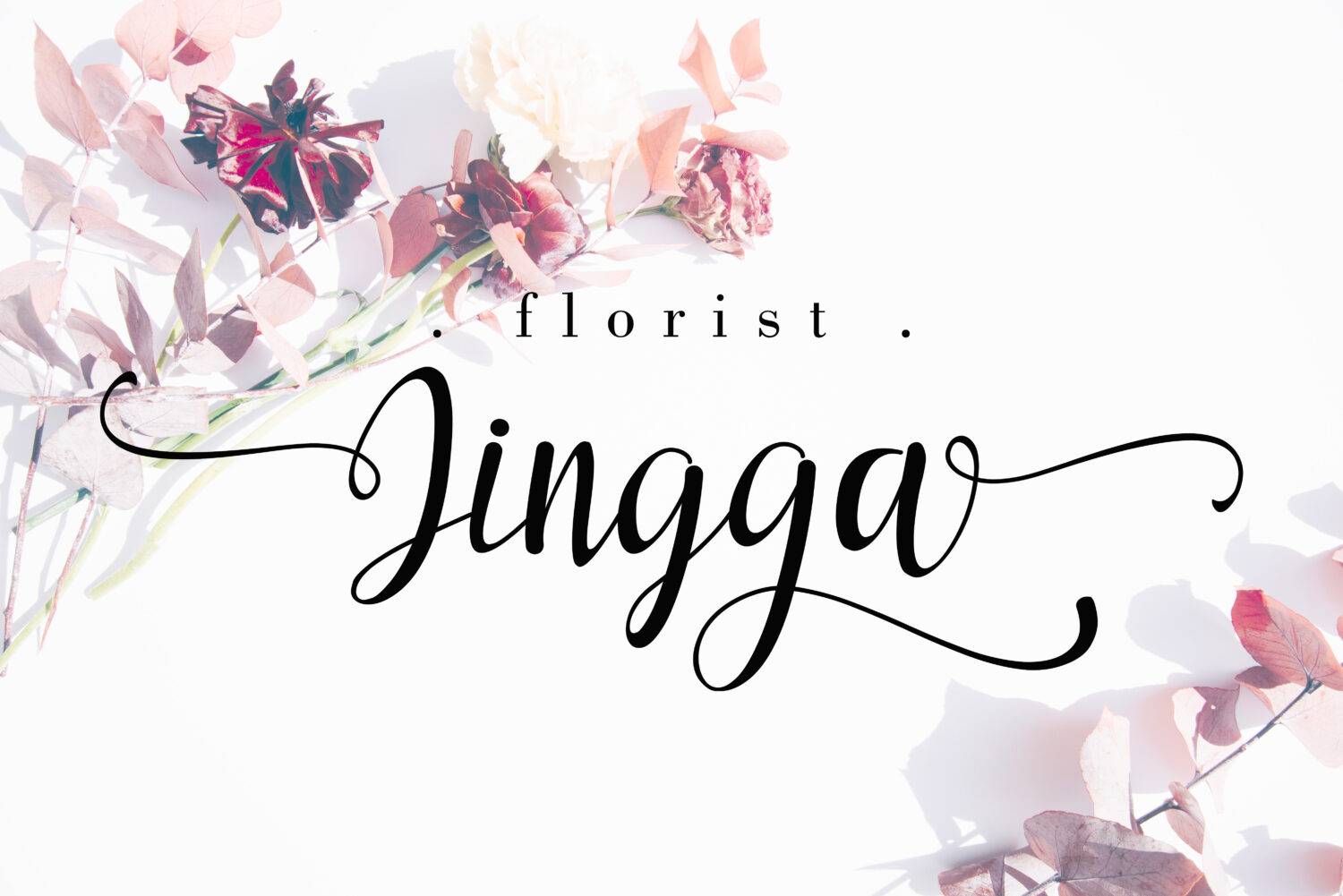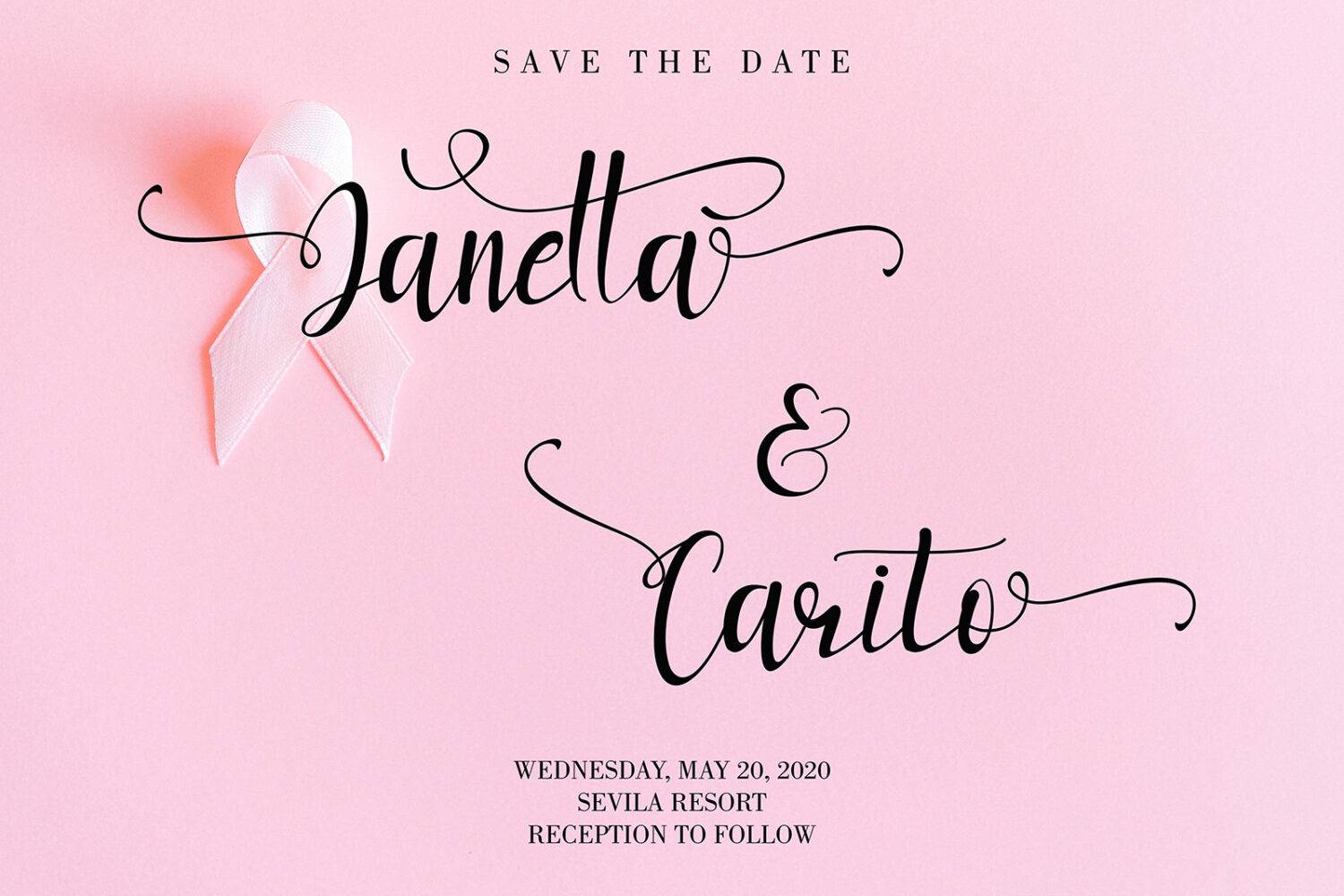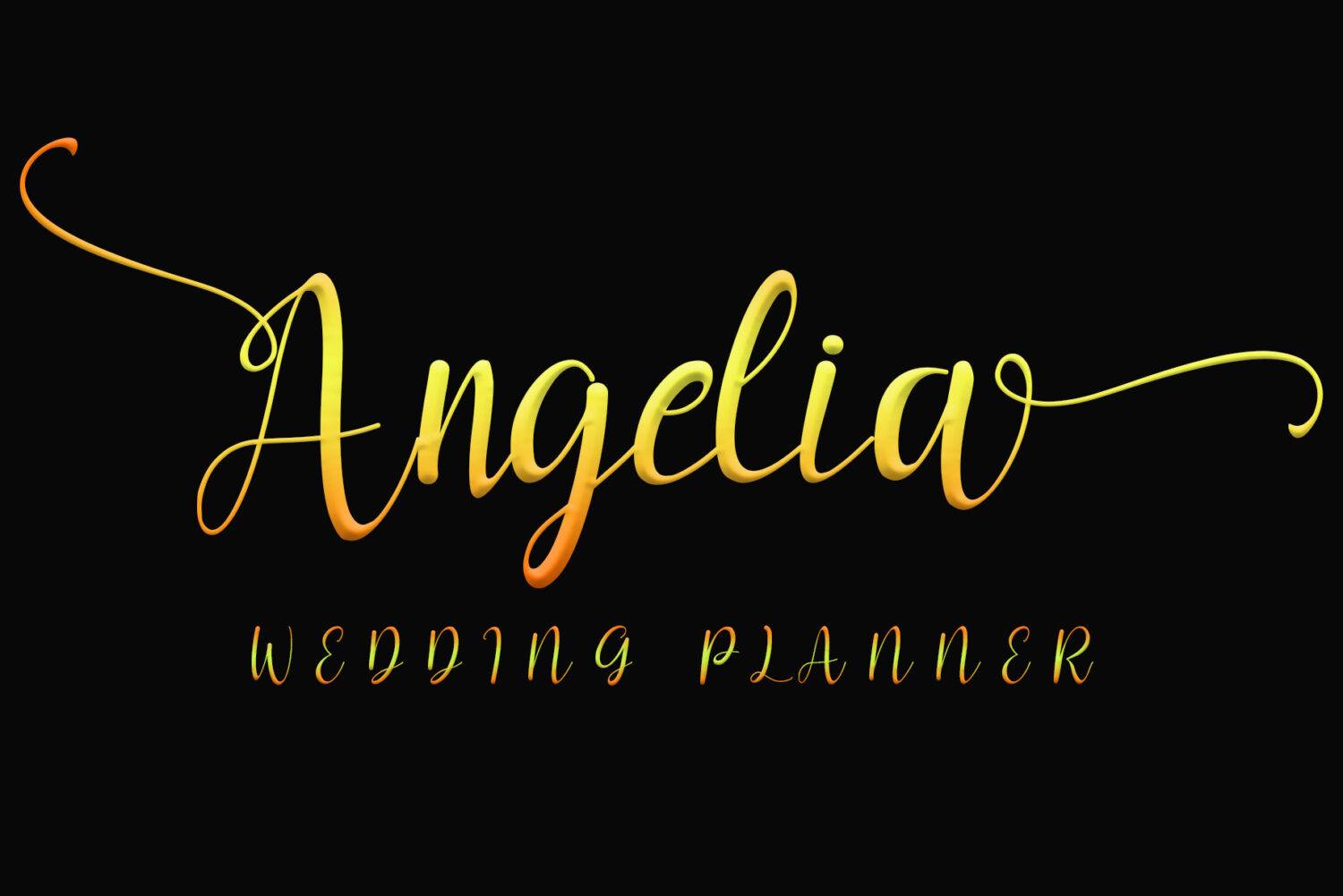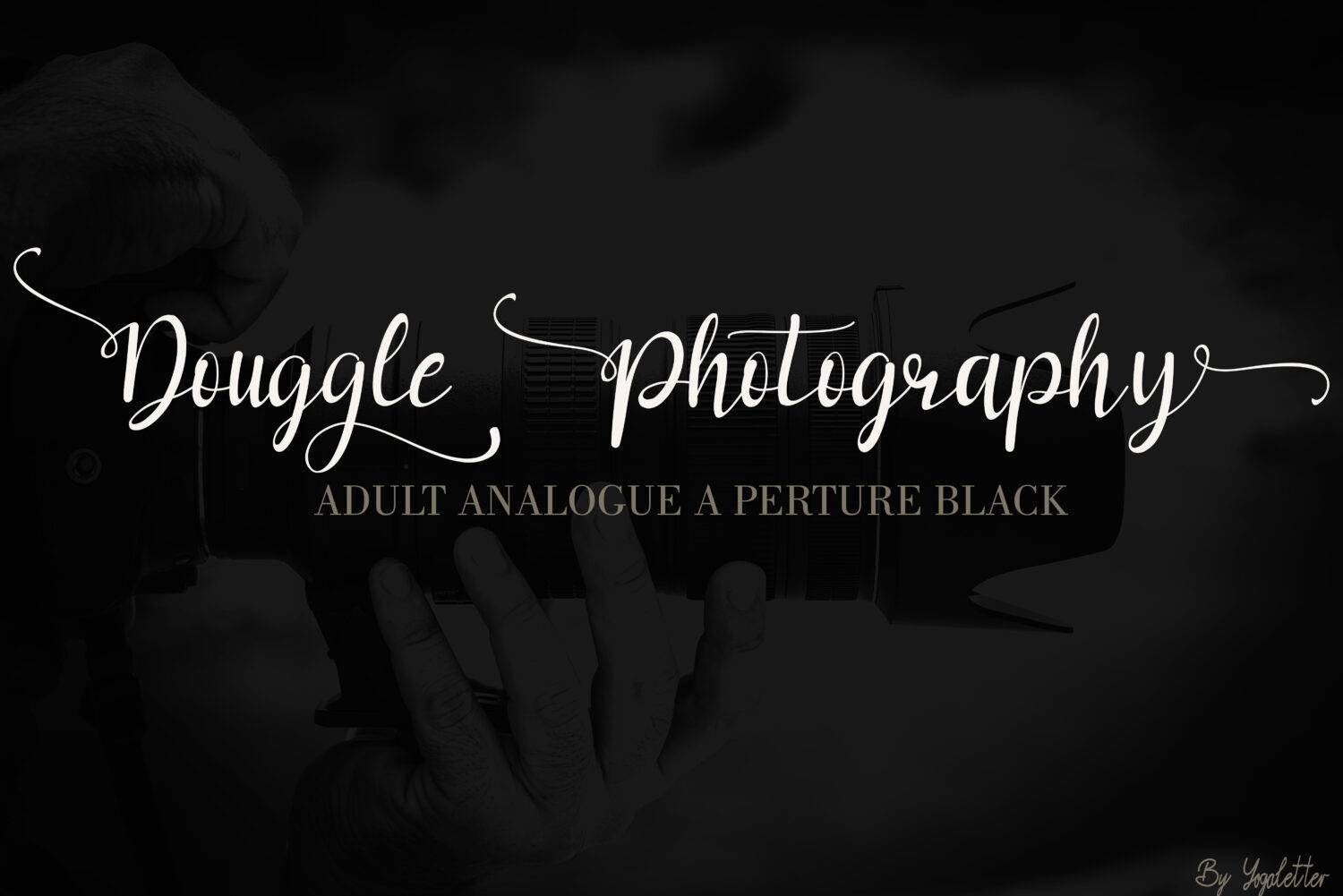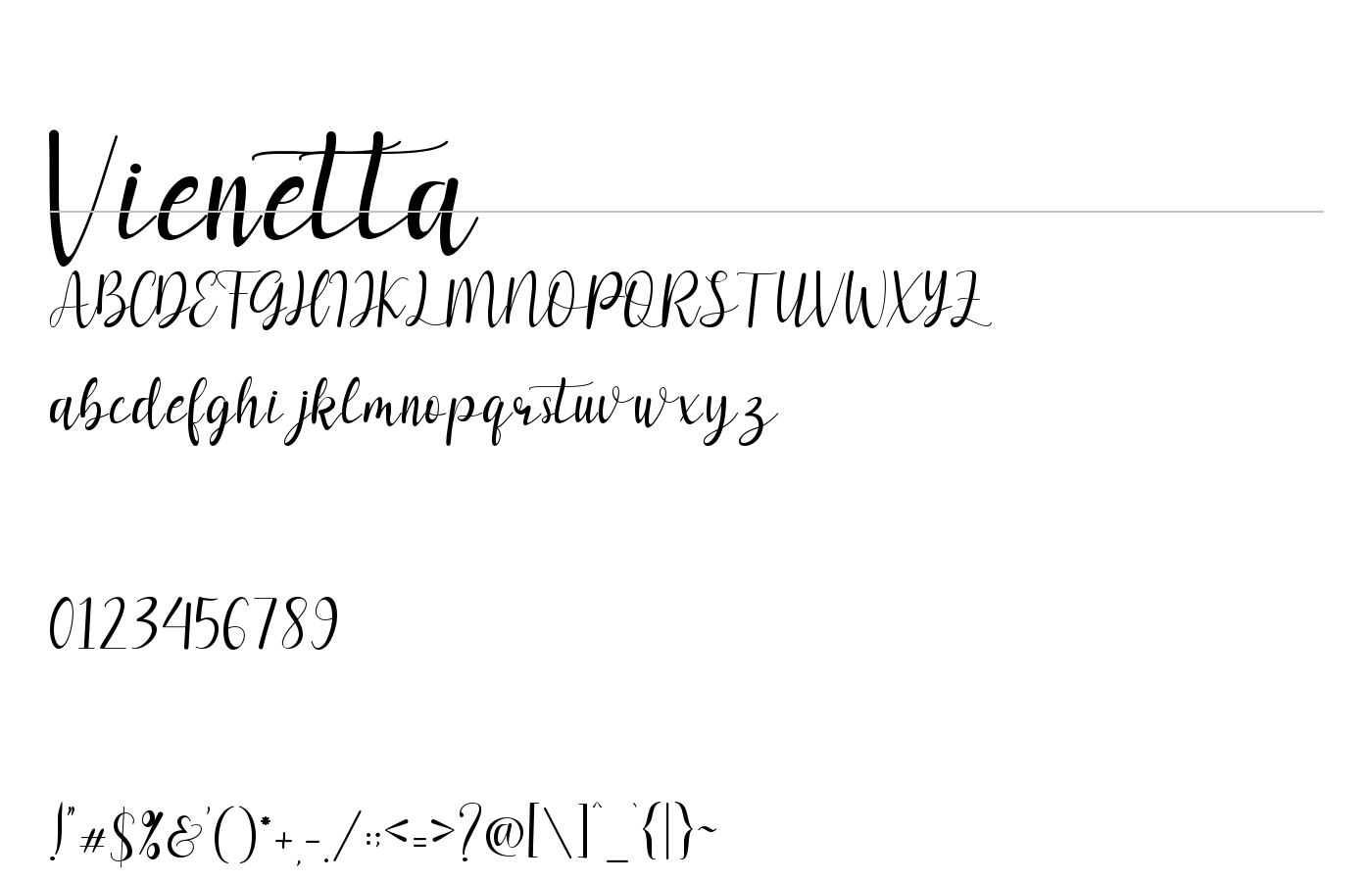
Vienetta is a delicate, modern script font with elegant, flowing letterforms characterized by fine strokes and subtle variations in weight, giving it a graceful, sophisticated feel. Its tall, narrow structure with high contrast between thick and thin lines makes it perfect for stylish branding, invitations, and editorial projects that seek a refined, feminine touch. This font shines in headlines and logos where a whimsical yet polished aesthetic is desired.
Vienetta Font
About Vienetta Font